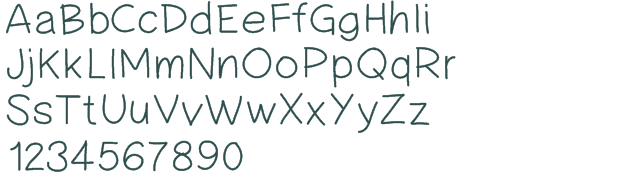
Easy To Read Fonts Free
Easy To Read Fonts Free. Click to find the best 9 free fonts in the handwriting easy to read style. Justice league is a caps only font.
The specific design of the letters with dedicated serif, useful in avoiding mistaking letters with similar form, has led to wider calibrated spacing that counteracts the perceived crowding effect, thus facilitating reading. In this article, we’ve took a look at ten of the easiest to read fonts for web content. Here’s what i’m talking about:
“Sans Serif” Fonts Don’t Have Feet.
A family of five free fonts with a handmade, slightly imperfect style. 57 professional easy script fonts to download. The fofer font, however, is clear and easy to read while still evoking personality.
Looking for easy to read fonts? Understanding which typefaces are the easiest to read can give you a leg up in this area and help you ensure your web content is legible for future users. Justice league is a caps only font.